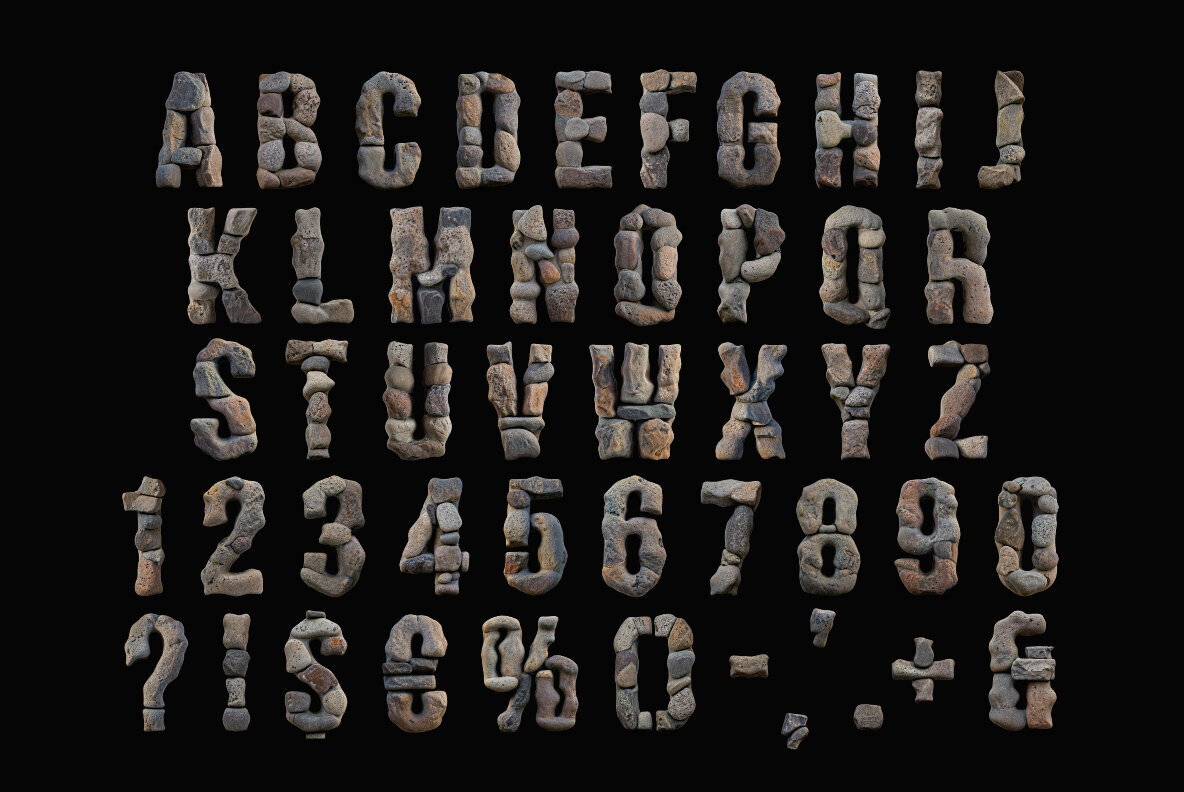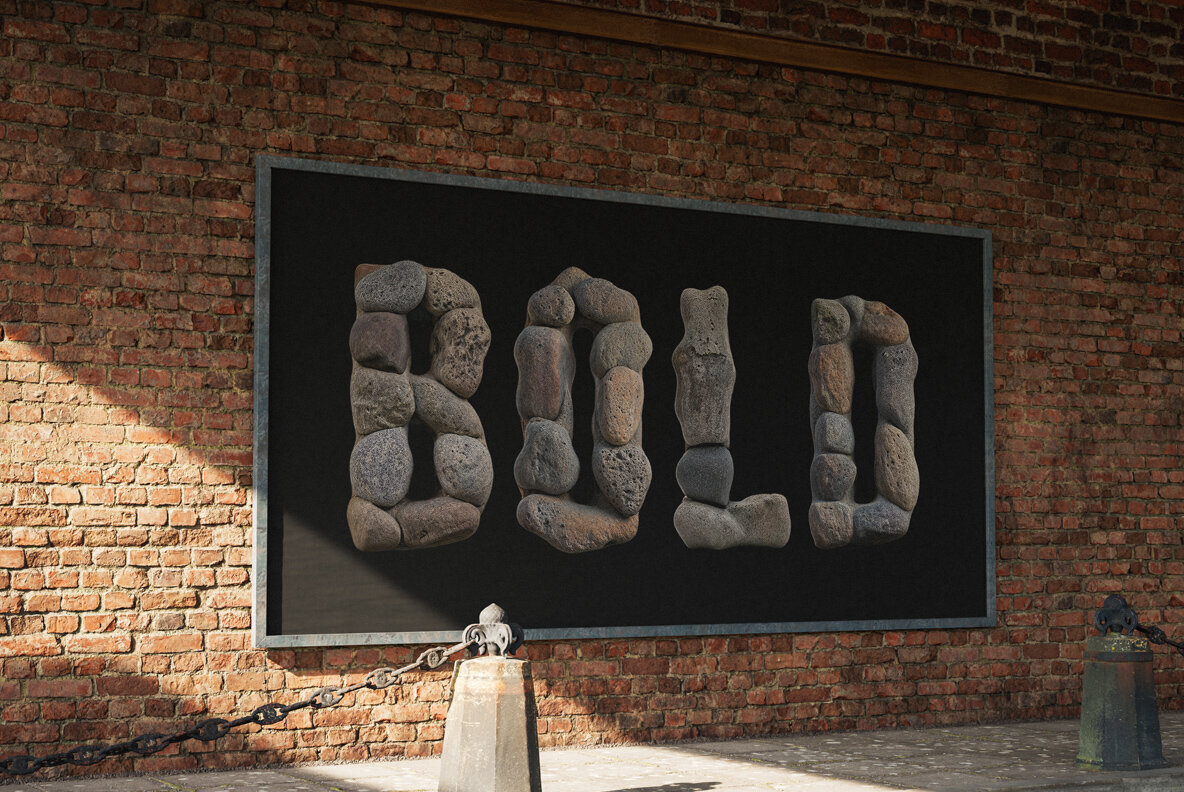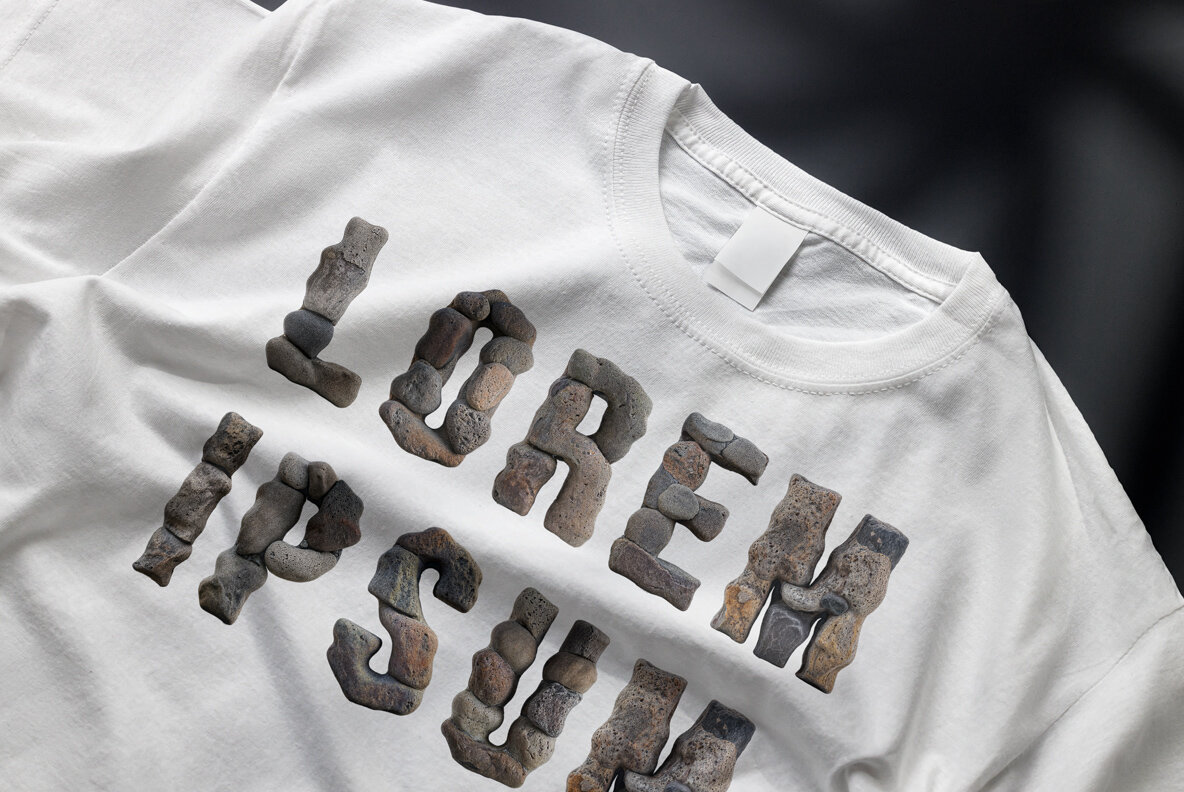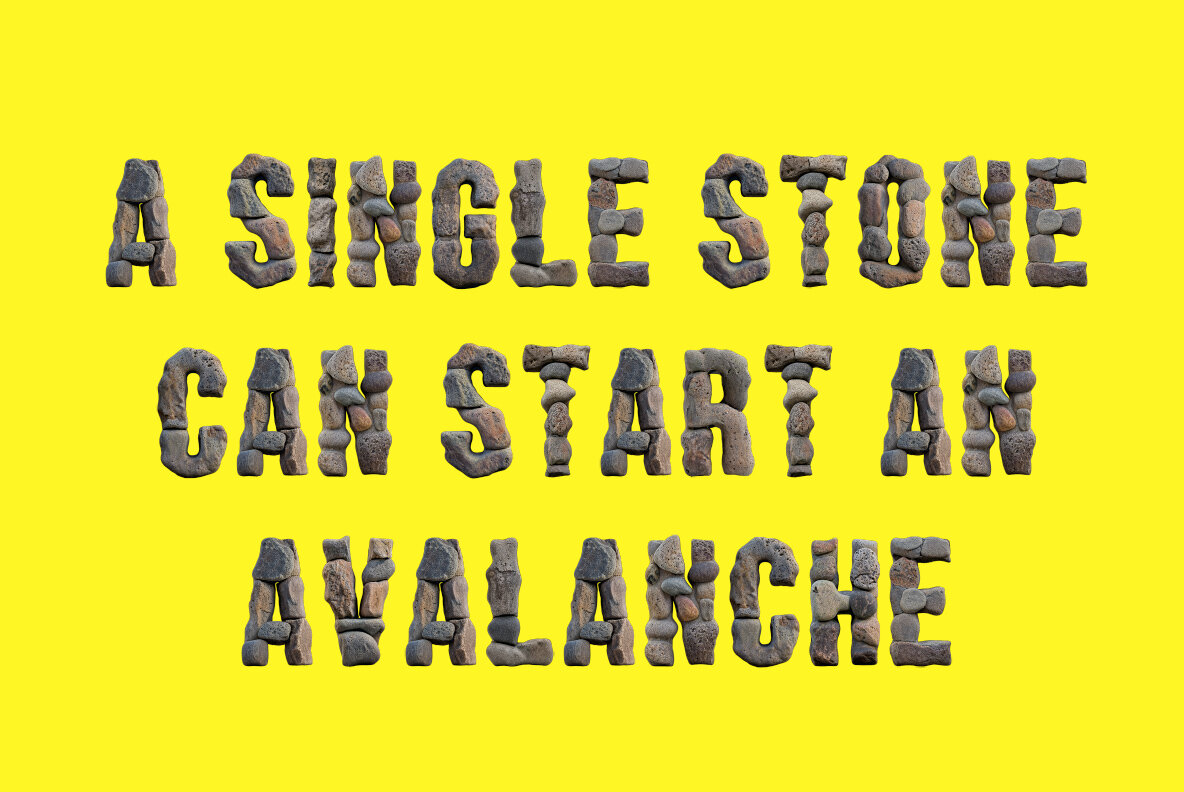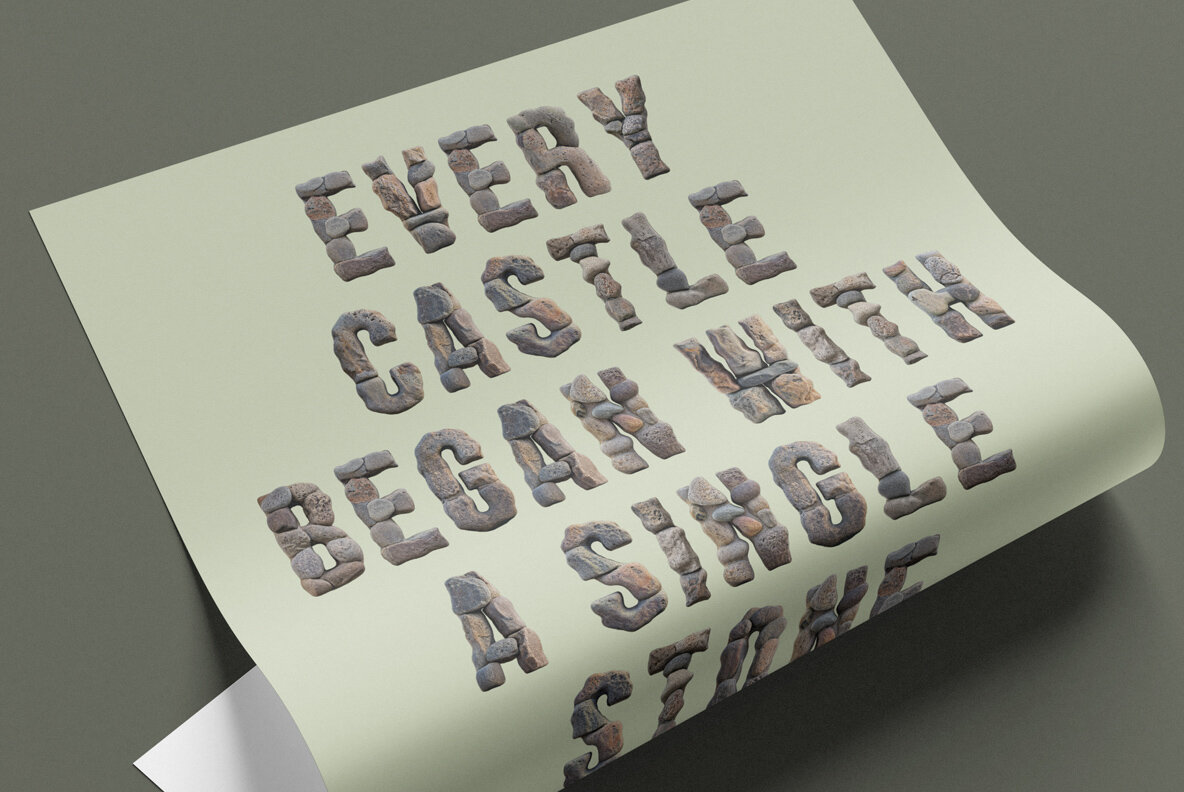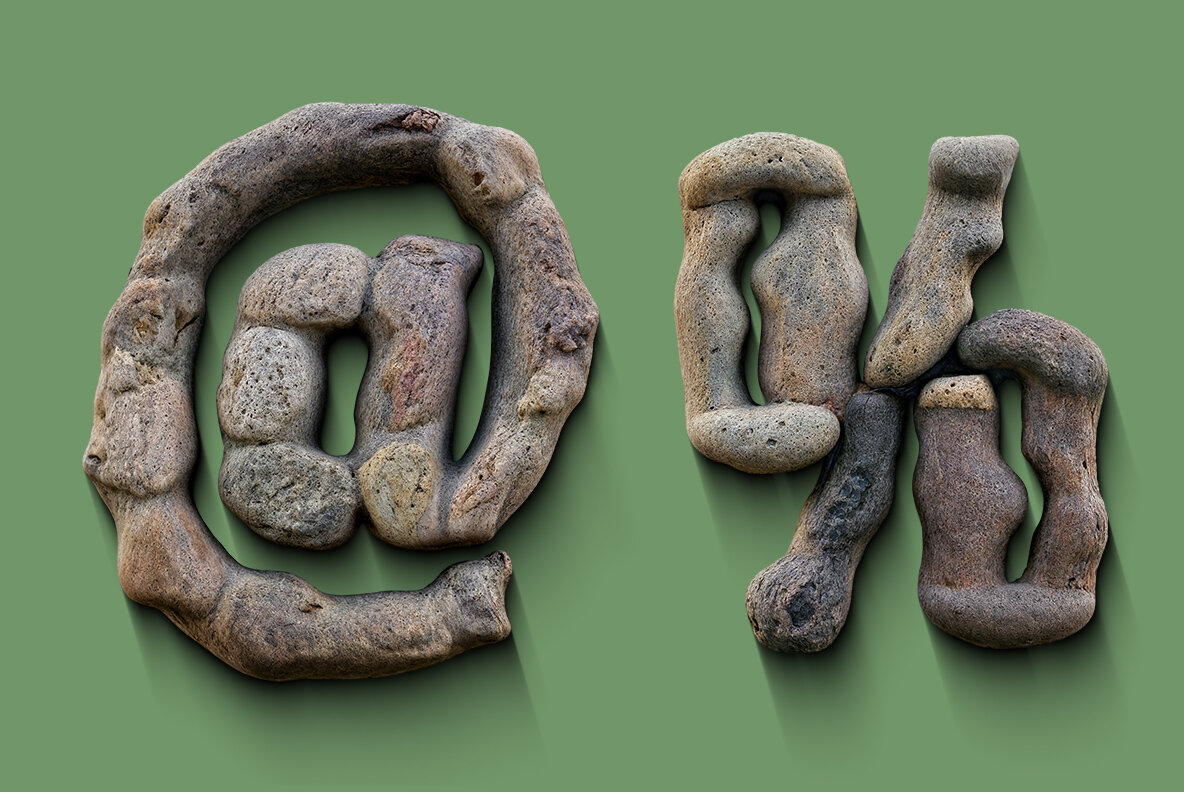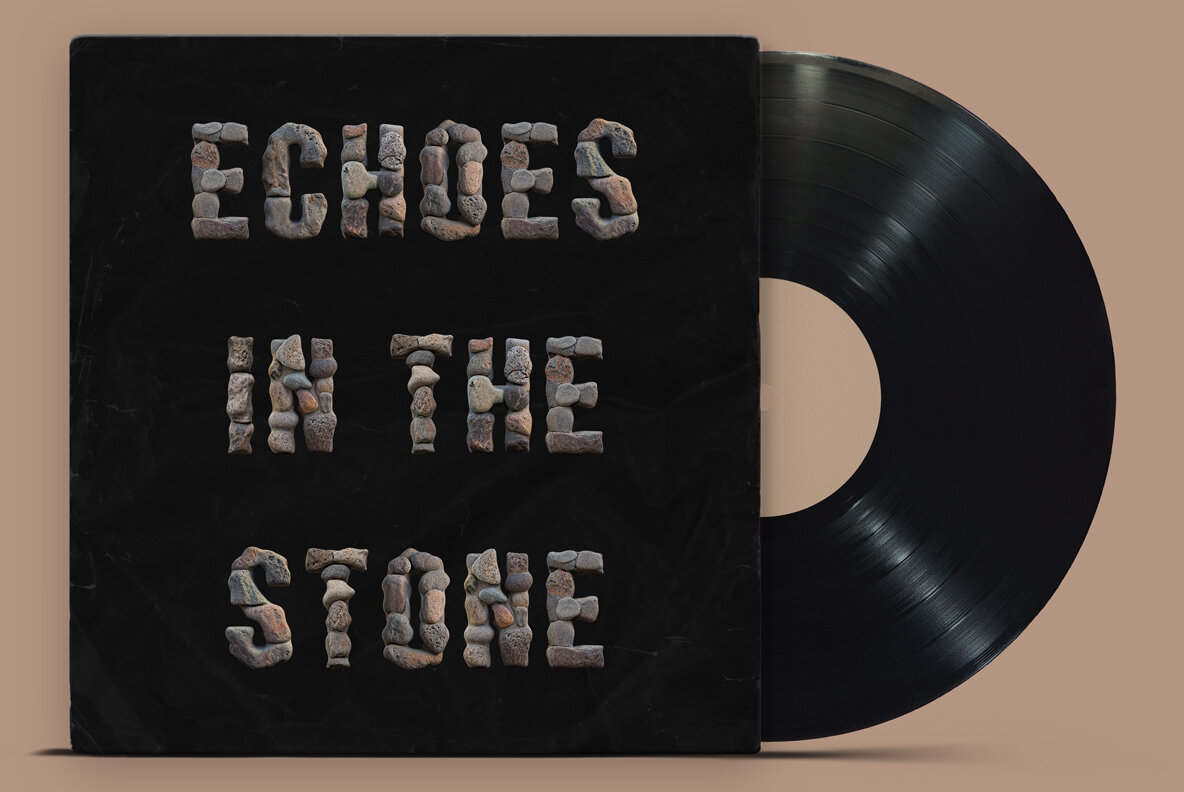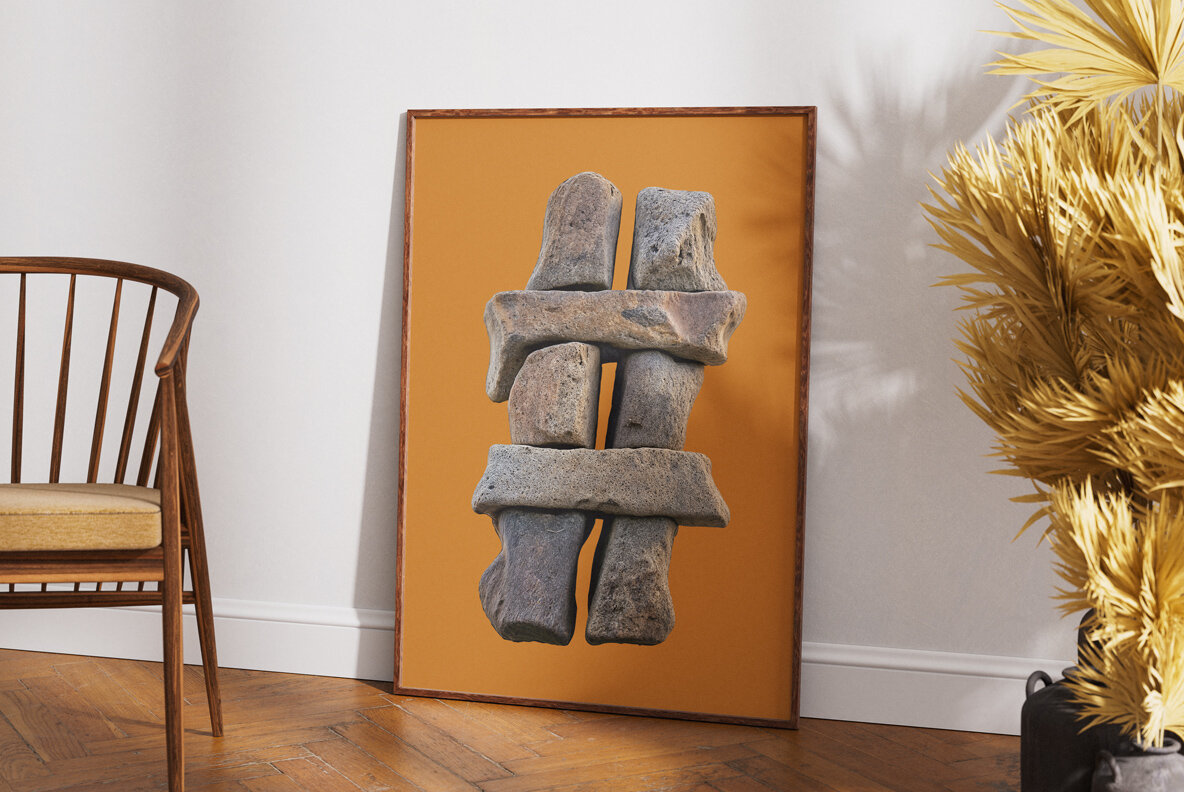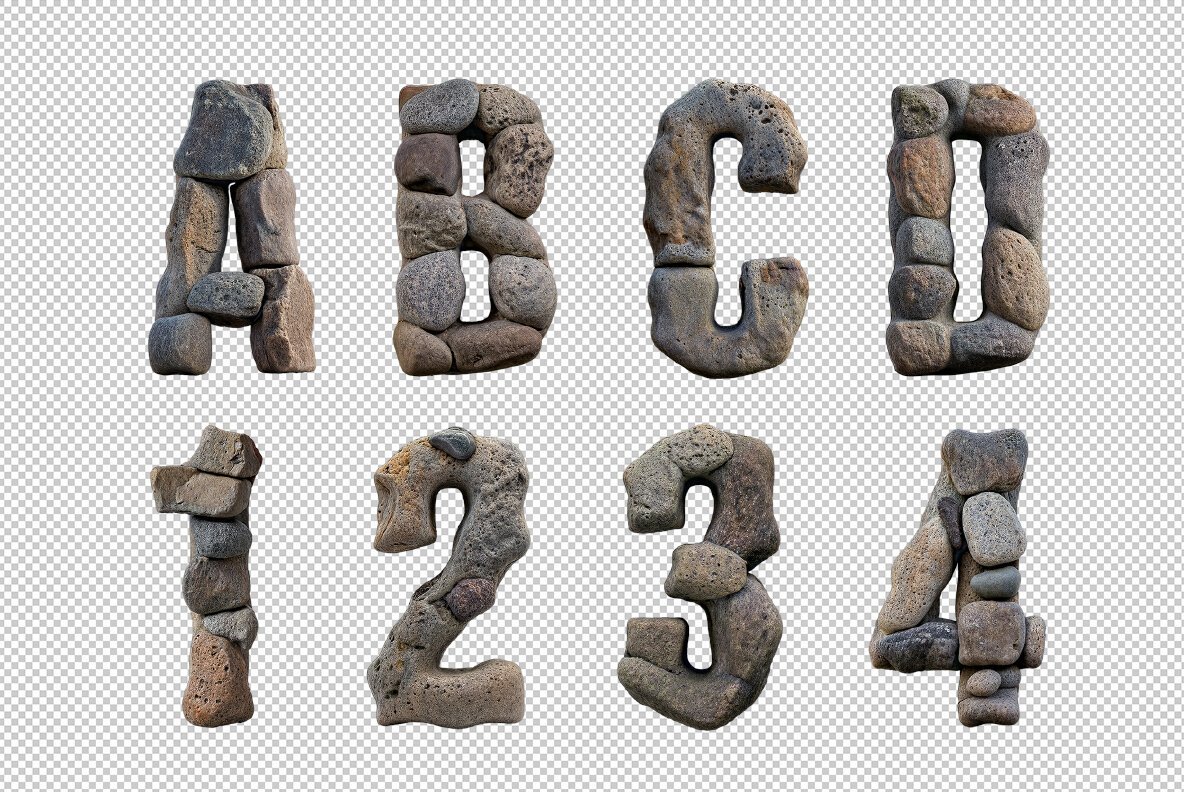
Stones have never looked so literate! Introducing Stone Stack Font — a rock-solid, stone-inspired font where each letter is a bold sculpture, carefully crafted from a stack of stones. Picture boulders balancing, pebbles perching, and rocks rallying together to form a sturdy, yet wildly creative stone alphabet. Every letter feels both ancient and avant-garde, with earthy grays and browns giving off that rugged, natural charm. It’s not just stone typography — it’s a rocky rebellion against boring fonts. Strong as a mountain, quirky as a cairn — Stone Stack Font doesn’t just spell words, it builds them. Perfect for when you want your design to rock! A high definition OpenType Font. Contains uppercase characters, numerals and basic punctuation. (Draw height roughly 800 pixels). All letters and glyphs that comprises this font you can see on the preview. The font is a colour OpenType file which means this font will show up only in apps that are compatible with color bitmap fonts. Now that OpenType-SVG has been adopted as the industry standard, there is good chance that you can start using color fonts across your favorite software and hardware (Photoshop, Illustrator, InDesign, QuarkXPress, Keynote, PowerPoint, Word etc.) However all characters are also included as individual .png files which can be opened in any graphics software. Each letter comes as a separate PNG file on a transparent background. Each image has the high resolution size of 4000x4000px. This downloadable package contains 52 files. Letters : A B C D E F G H I J K L M N O P Q R S T U V W X Y Z Punctuation and Language Support. Due to the large nature of OpenType-SVG fonts, extended punctuation and language support are not included in the font files. However all punctuation characters and the following accents are included as individual image files in the .png letter set, which can be manually added to your text.
Others : ! ? - . ' $ € % & #